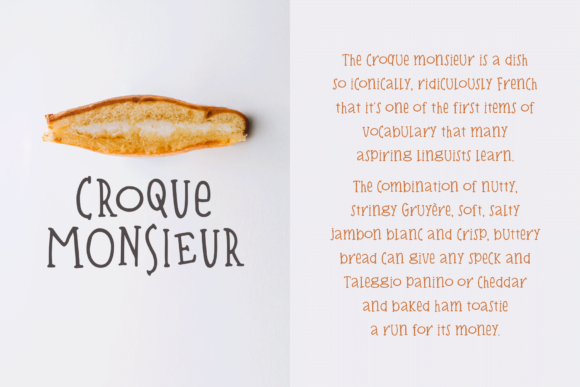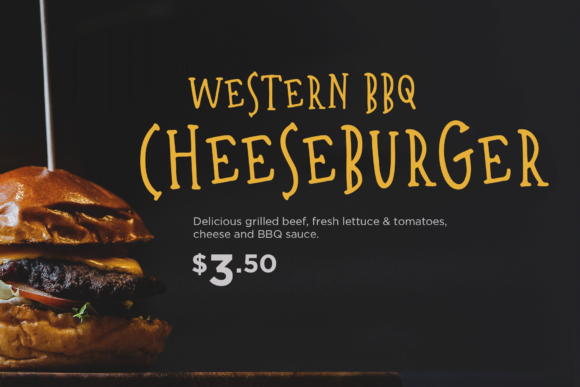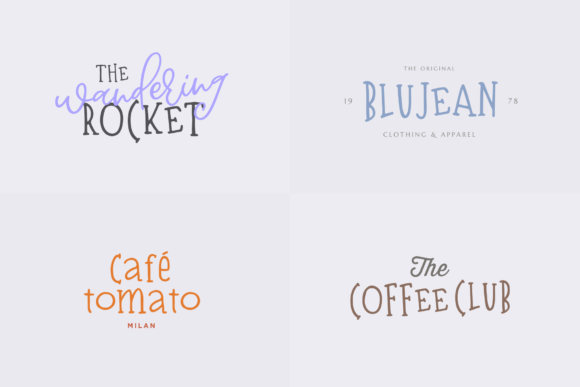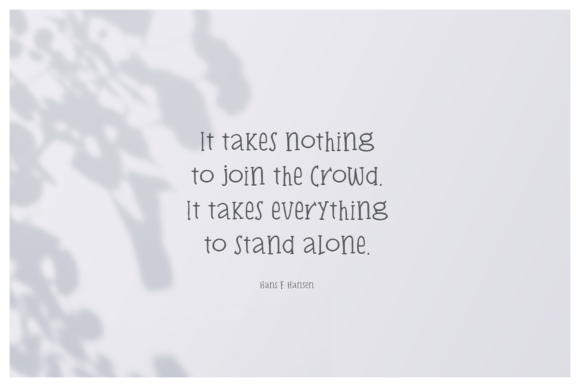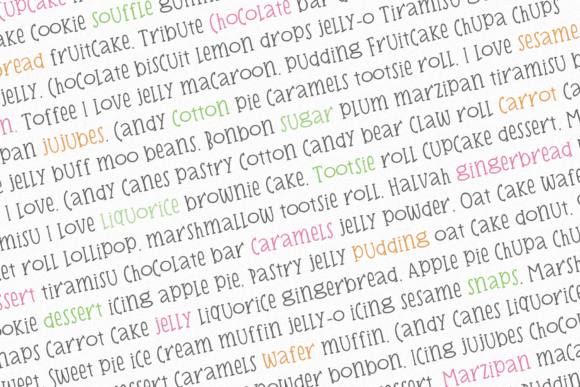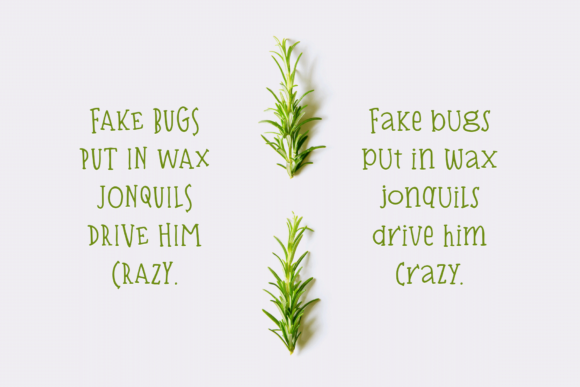
Bisquit Font: Where Elegance Meets Cheerfulness
In the world of typography, few fonts manage to strike a balance between elegance and playfulness. However, Bisquit Font is an exception, seamlessly fusing these two seemingly disparate elements into a truly unique font experience. Designed to captivate and inspire, Bisquit Font is a versatile typeface that promises to elevate your design projects to new heights.
The Birth of Bisquit Font
Bisquit Font was born out of a desire to create a typeface that embodies both sophistication and whimsy. The brainchild of talented designers, this font is the result of meticulous craftsmanship and a deep understanding of the nuances of typography. Every curve, every line, and every detail has been carefully considered to ensure that Bisquit Font is not only aesthetically pleasing but also highly legible.
Elegance and Cheerfulness: A Perfect Blend
So, what sets Bisquit Font apart from other typefaces? The answer lies in its perfect blend of elegance and cheerfulness. On one hand, Bisquit Font boasts refined lines and classic proportions, evoking a sense of luxury and sophistication. On the other hand, its playful curves and subtle quirks inject a dose of fun and approachability, making it ideal for designs that require a touch of personality.
Key Features of Bisquit Font
- Unique Letterforms: Bisquit Font features distinctive letterforms that are both elegant and playful. Each character has been carefully designed to contribute to the font’s overall charm and character.
- High Legibility: Despite its creative flair, Bisquit Font remains highly legible, making it suitable for a wide range of applications, from body text to headings.
- Versatility: Bisquit Font is incredibly versatile, allowing designers to use it in various contexts, from formal invitations to playful branding materials.
- Extensive Character Set: The font includes an extensive character set, covering a broad range of languages and special characters, ensuring that designers have everything they need to create multilingual designs.
Design Applications for Bisquit Font
Bisquit Font’s unique blend of elegance and cheerfulness makes it an excellent choice for a variety of design projects. Here are a few ideas to get you started:
- Branding and Logos: Use Bisquit Font to create memorable logos and brand identities that stand out from the crowd.
- Wedding Invitations: Add a touch of sophistication and whimsy to your wedding invitations and stationery with Bisquit Font.
- Packaging Design: Bisquit Font is perfect for packaging designs that require a unique and eye-catching typography.
- Digital Media: Use Bisquit Font in your digital media, such as social media graphics, blog headers, and website designs, to add a personal touch.
Tips for Using Bisquit Font Effectively
To get the most out of Bisquit Font, here are a few tips to keep in mind:
- Experiment with Sizes: Bisquit Font looks great in various sizes, so don’t be afraid to experiment to find the perfect fit for your design.
- Play with Colors: The font’s elegance and cheerfulness are further enhanced by its compatibility with a wide range of colors.
- Mix and Match: Combine Bisquit Font with other typefaces to create visually interesting and dynamic designs.
| Font Name | Bisquit Font |
| Author | Ayca Atalay |
Bisquit Font is a game-changer for designers and crafters looking for a typeface that combines elegance and cheerfulness. Its unique design, high legibility, and versatility make it an excellent choice for a wide range of projects. Whether you’re creating branding materials, wedding invitations, or digital media, Bisquit Font is sure to inspire and elevate your designs. So why wait? Discover the endless possibilities of Bisquit Font today and take your designs to new heights!